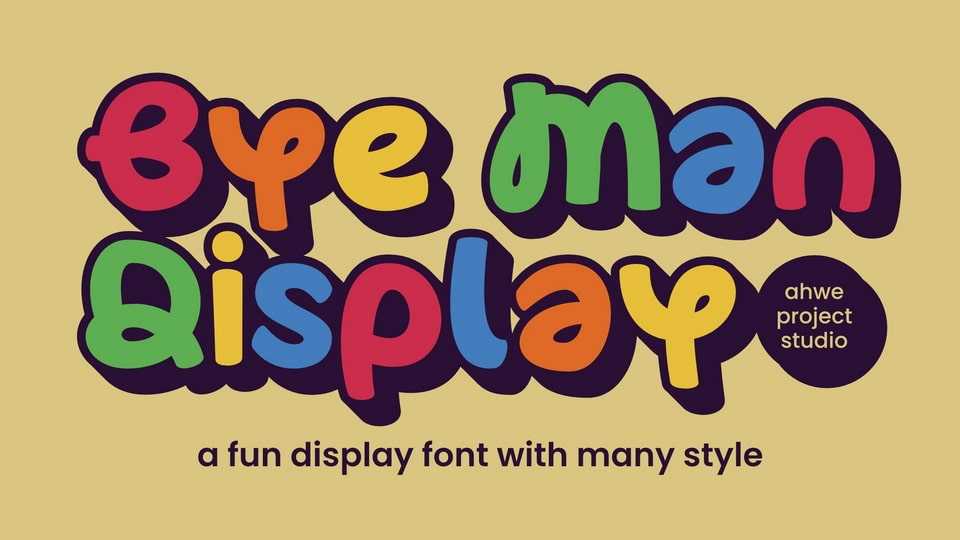
Download Bye Man font, a playful display typeface that combines bold letters and unique letterforms. This font can be used for various designs such as birthday invitations, children’s t-shirts.